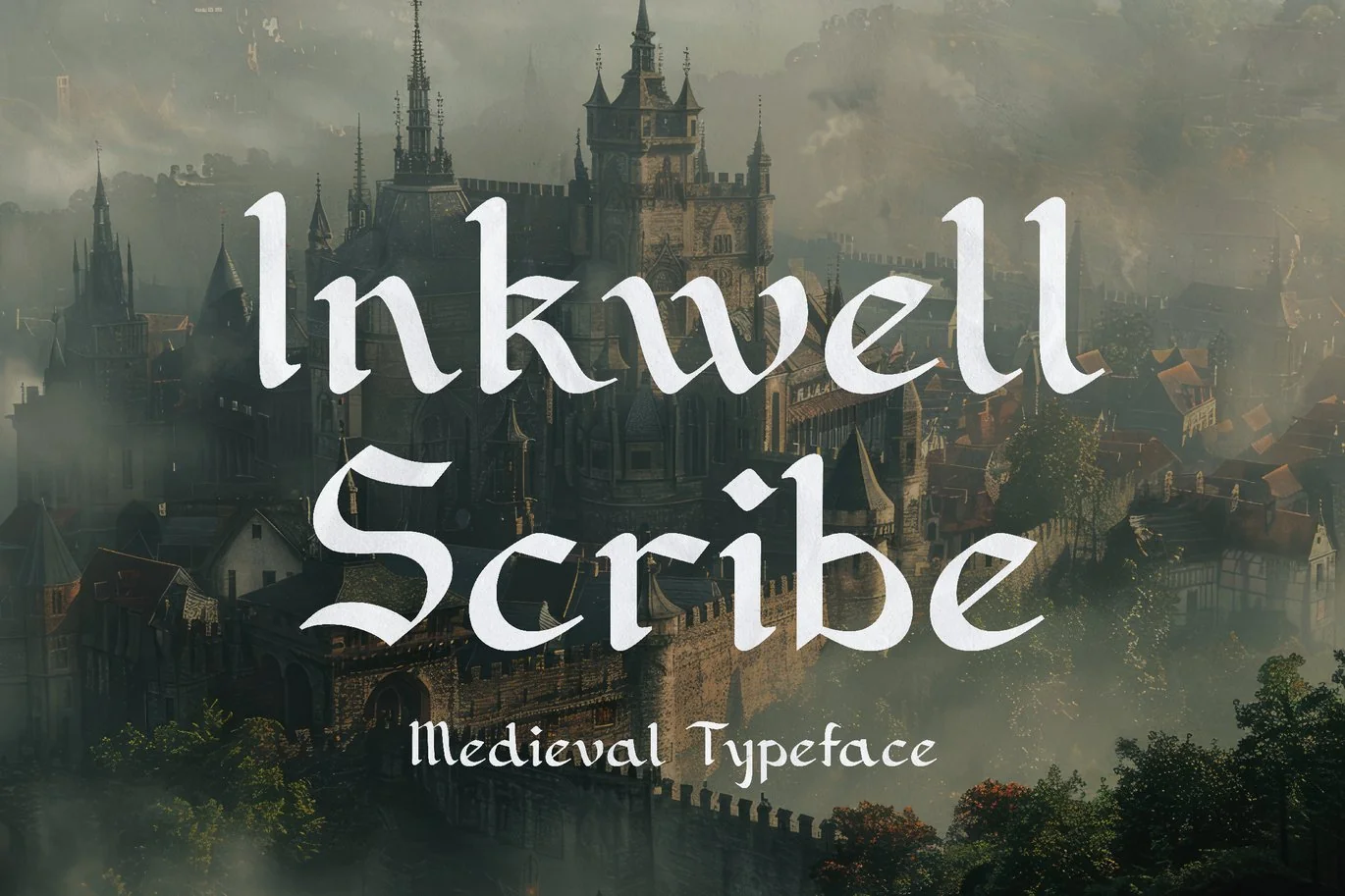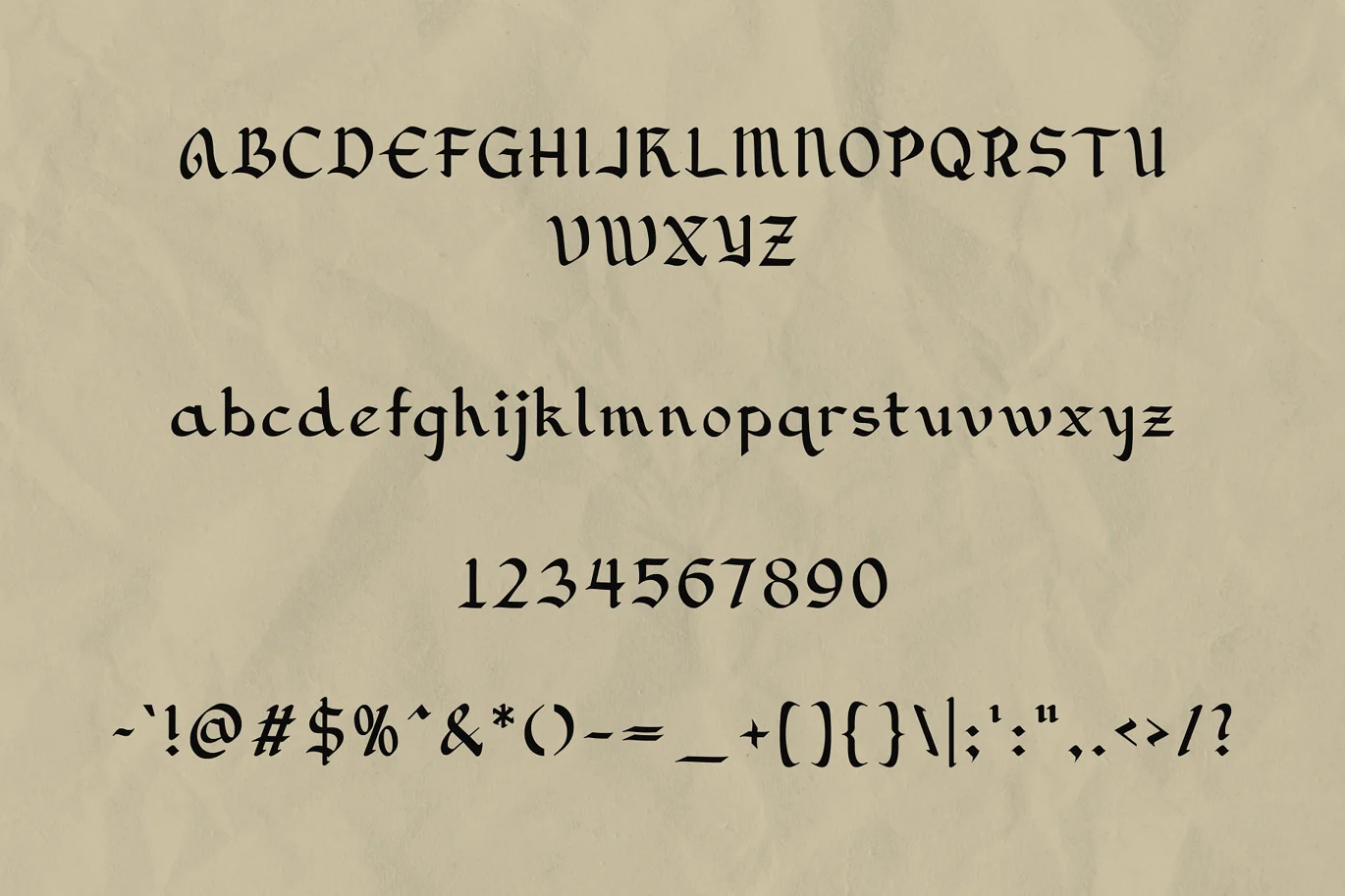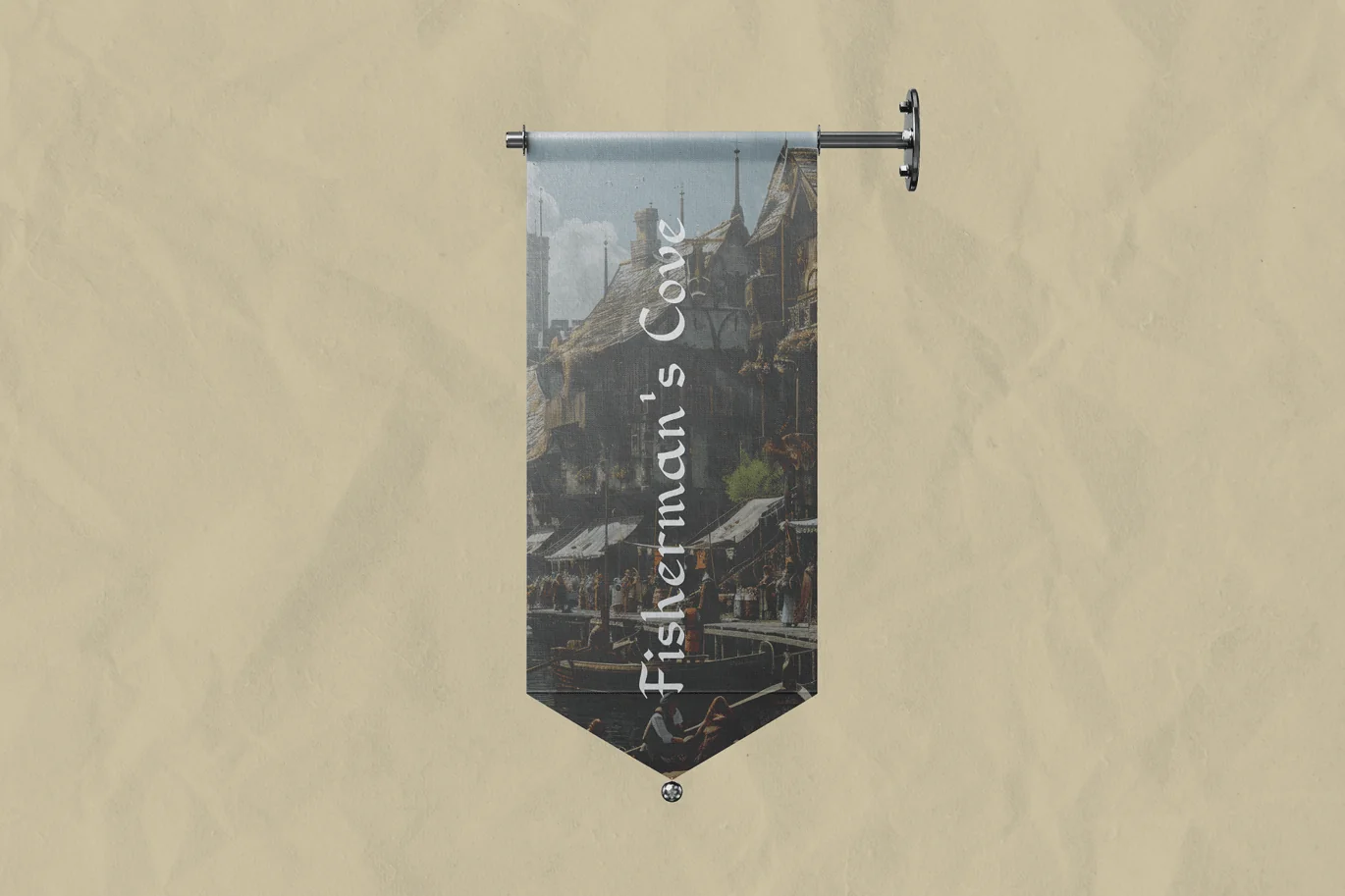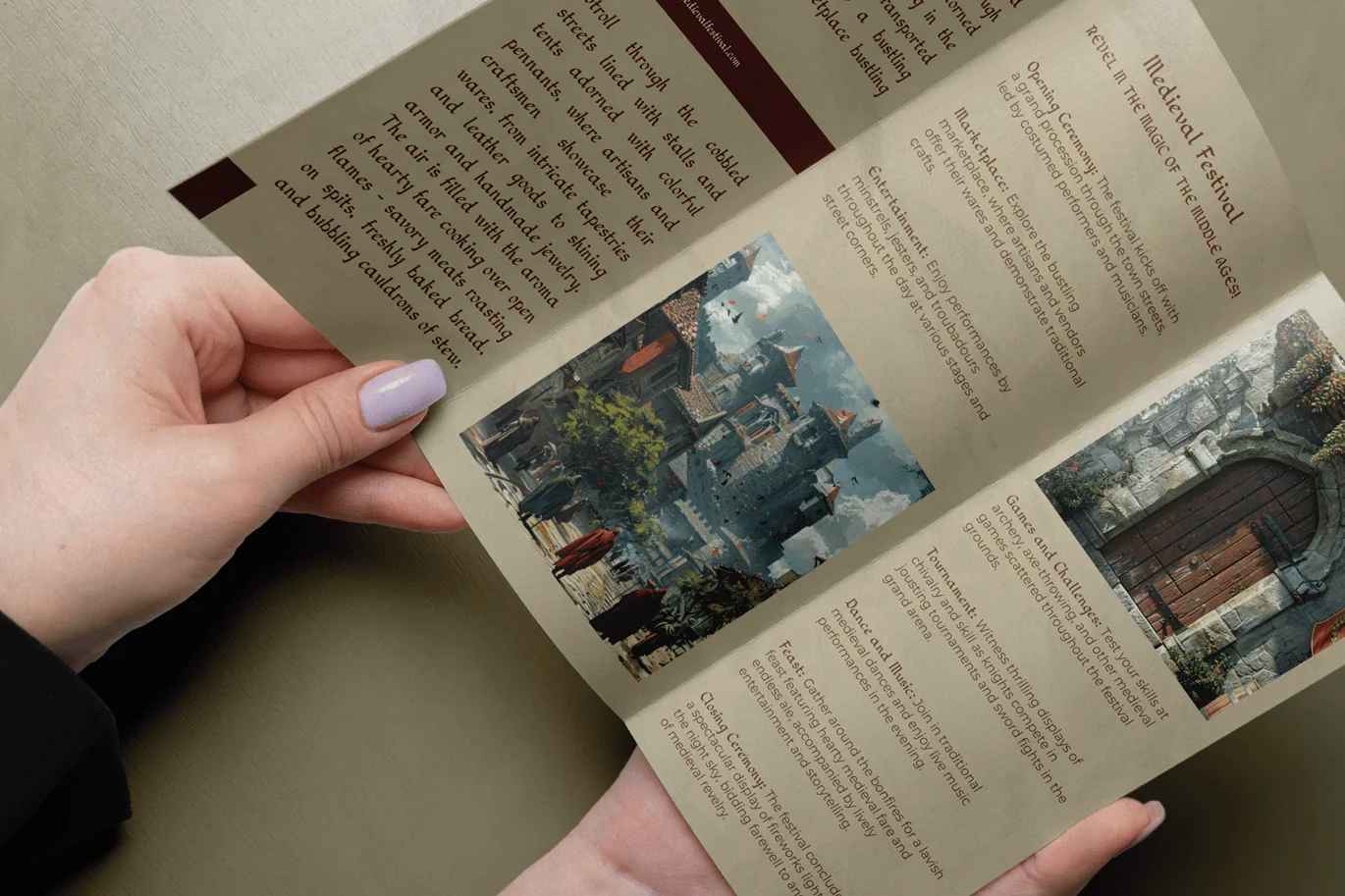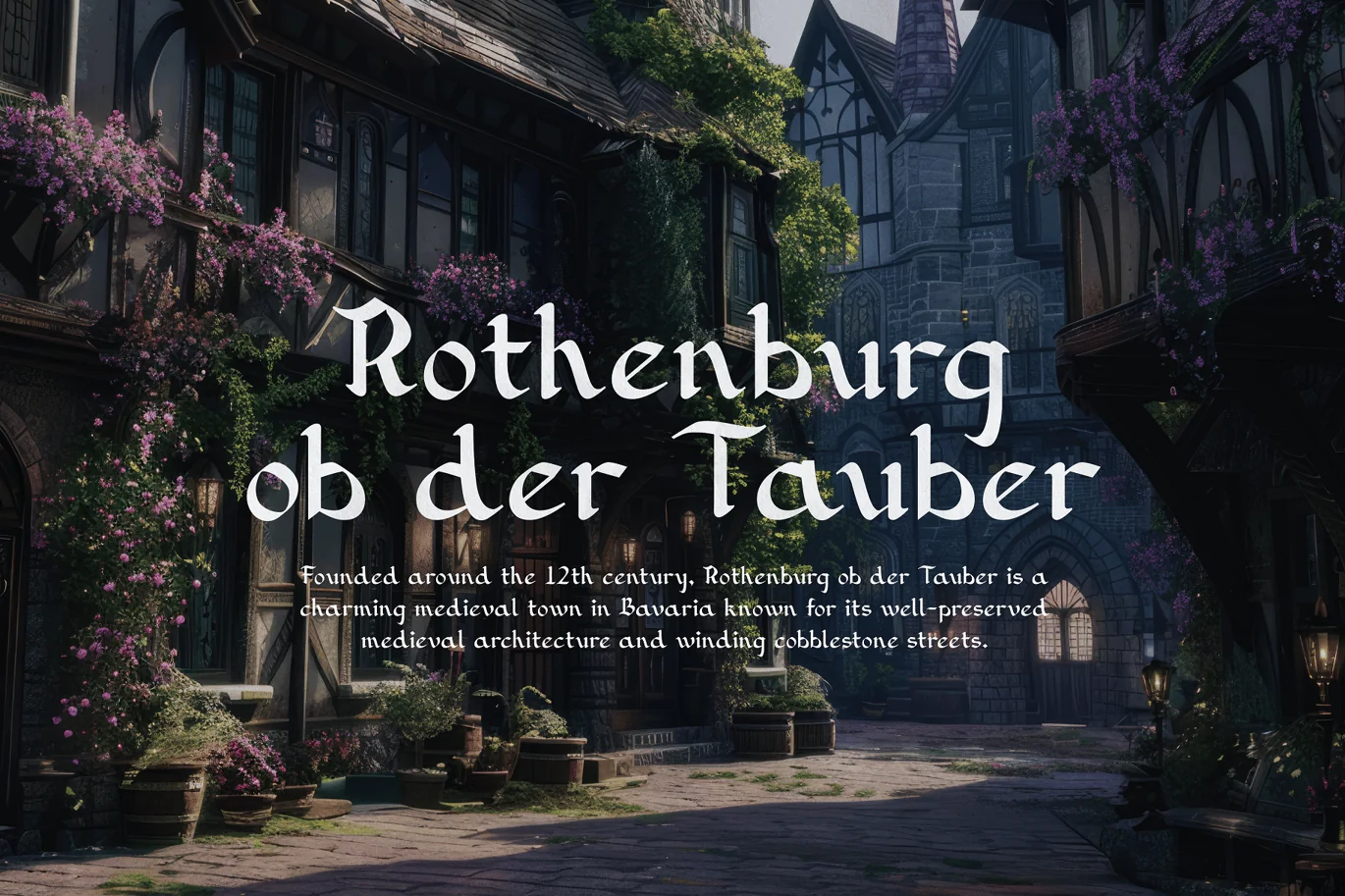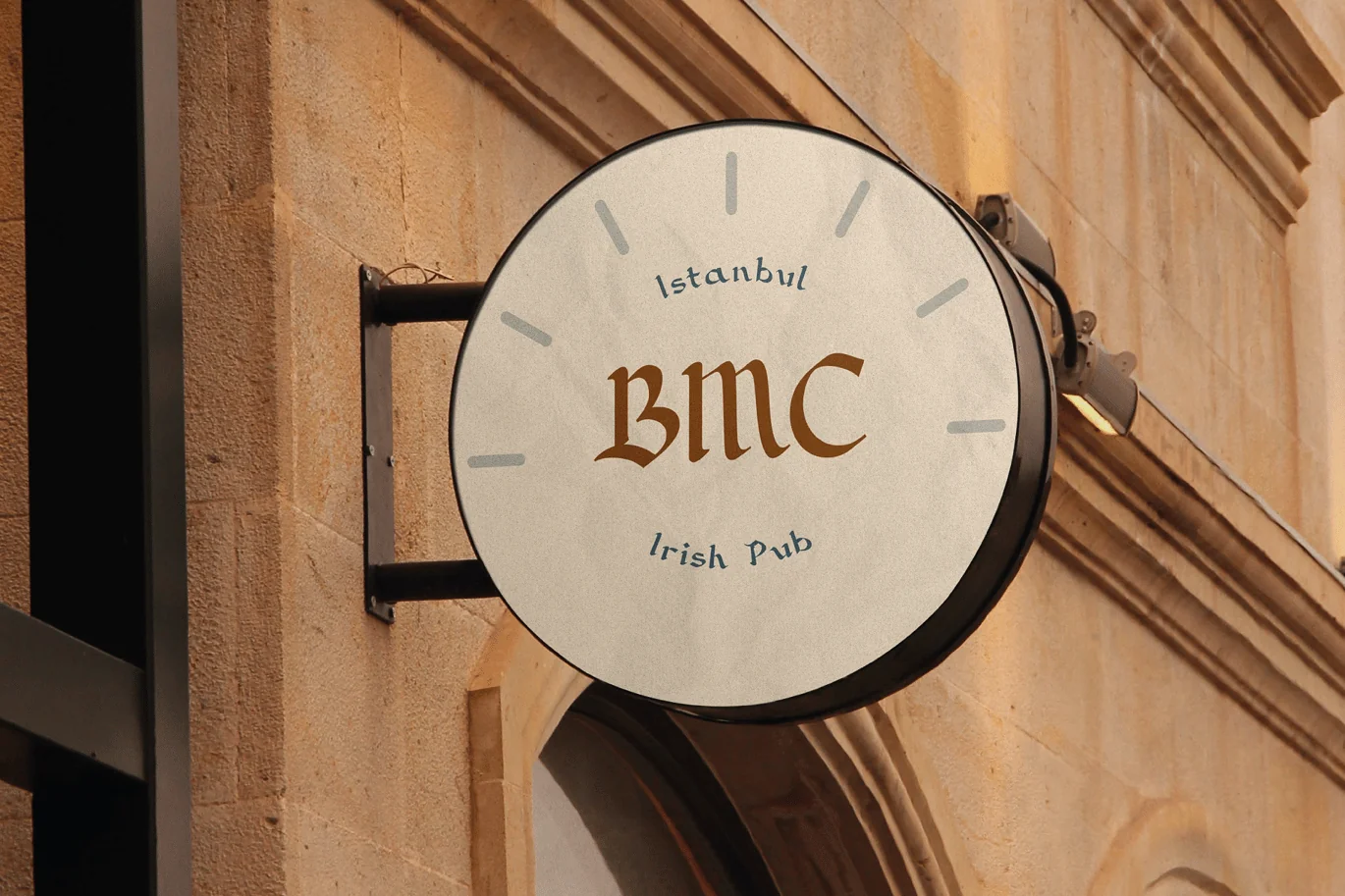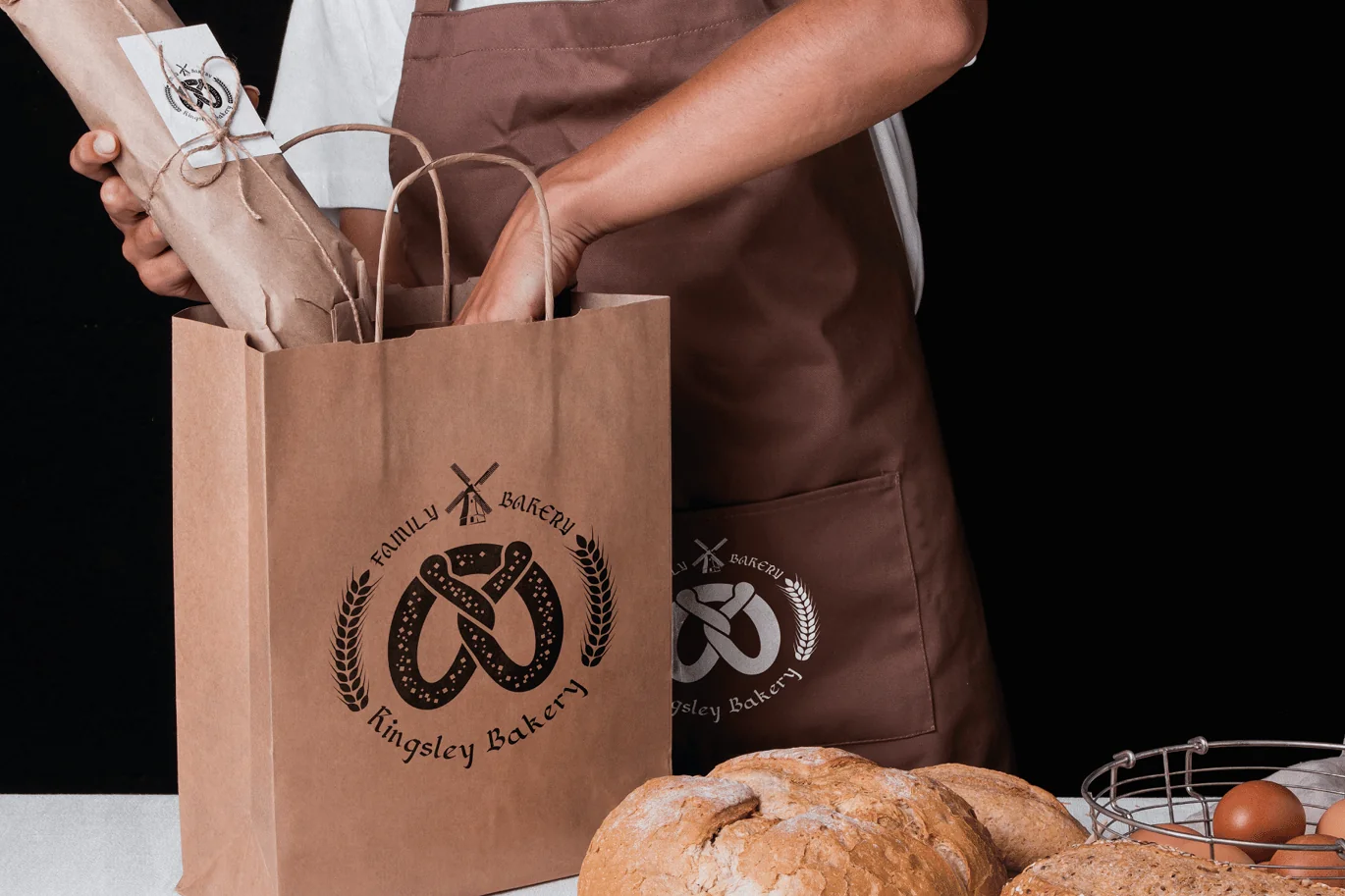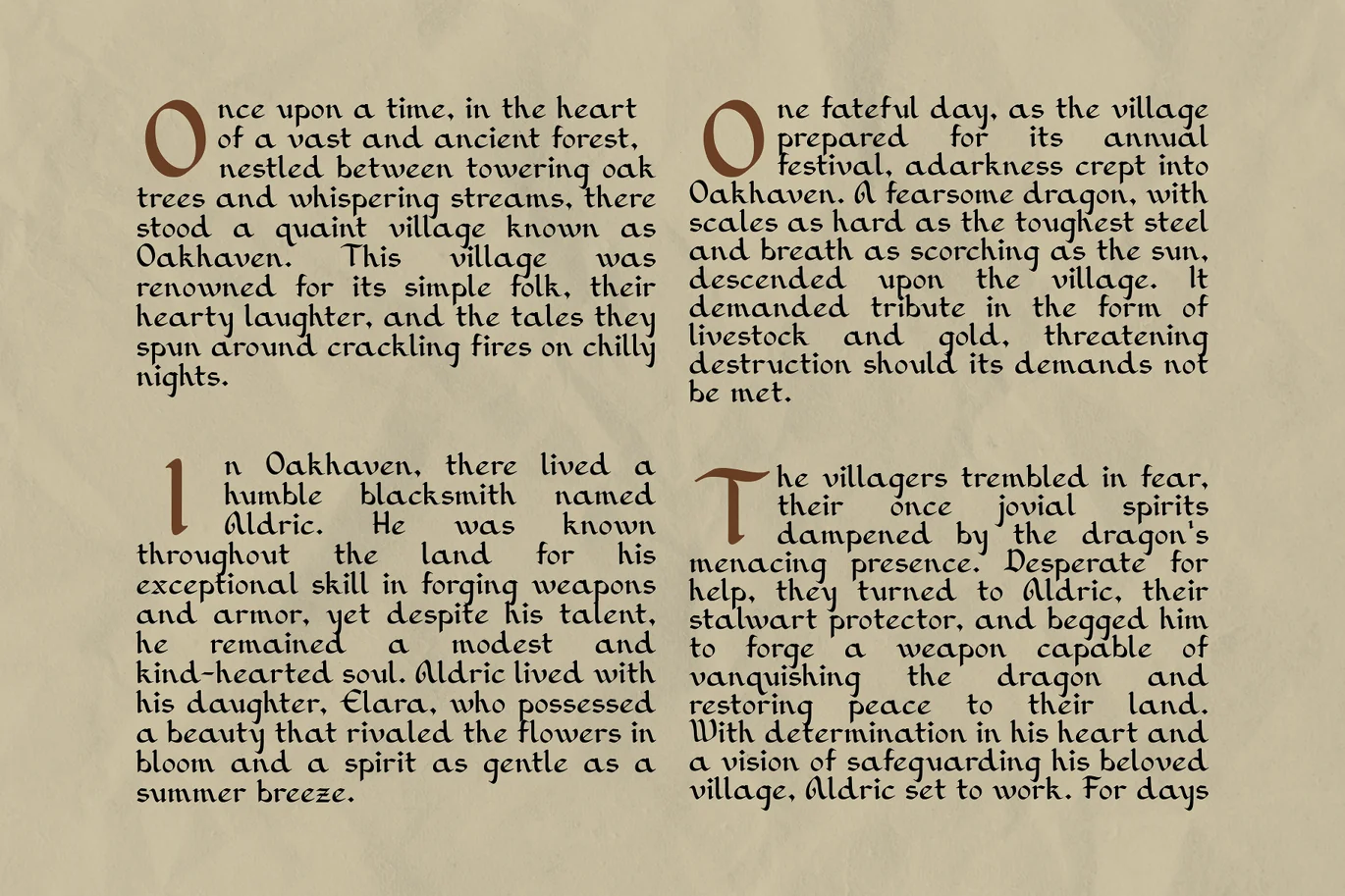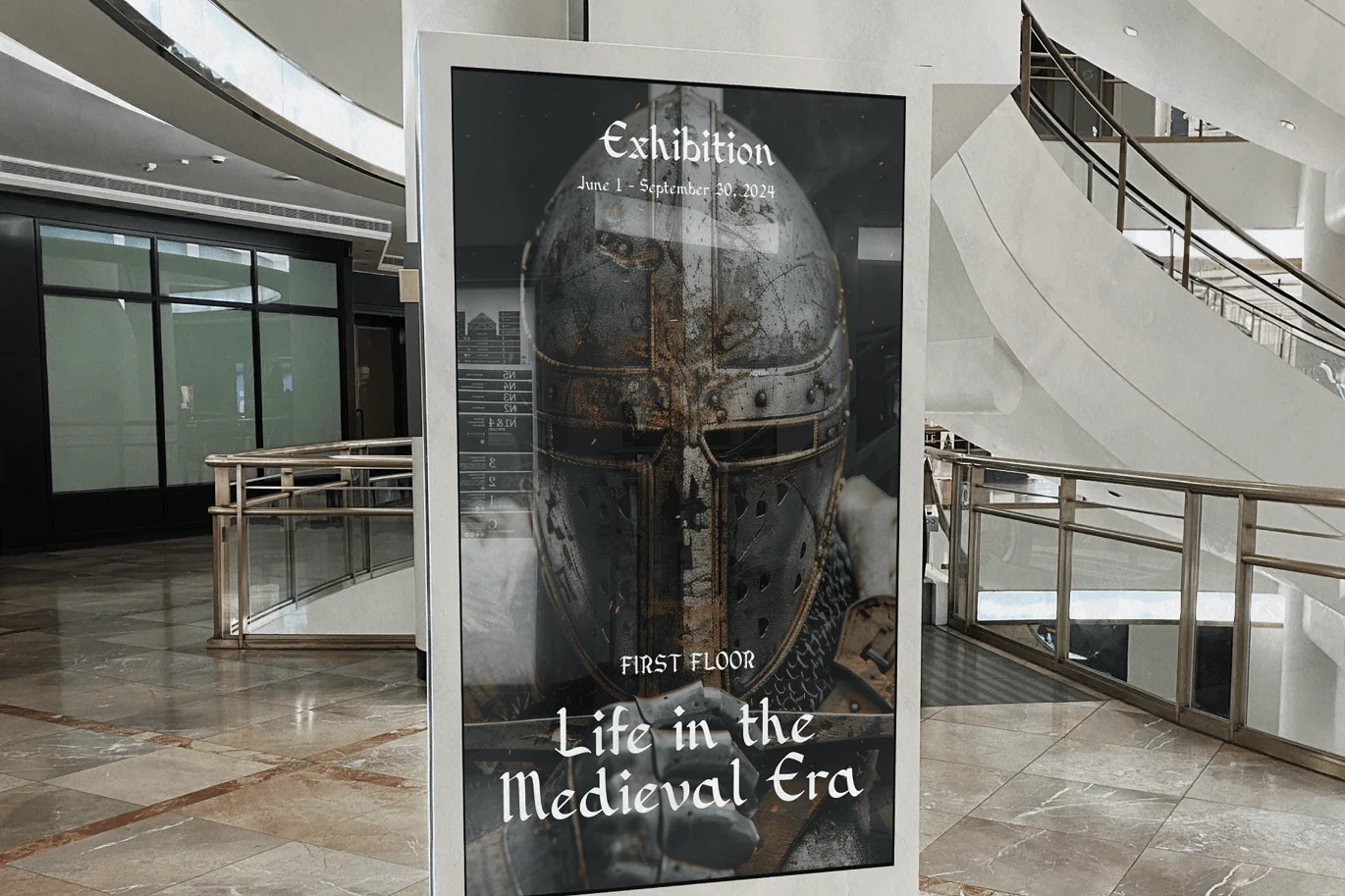
Inkwell Scribe – Medieval Typeface
Step into the enchanting world of the Middle Ages with Inkwell Scribe, a meticulously crafted typeface that captures the essence of medieval manuscripts and calligraphy. Perfect for bringing a touch of historical elegance to your modern designs, Inkwell Scribe weaves the artistry and tradition of medieval script into every character.
Inkwell Scribe isn’t just a typeface; it’s a journey into the rich, artistic world of medieval calligraphy. Whether you’re aiming to evoke a sense of history or add a touch of old-world charm to your designs, Inkwell Scribe is the perfect choice.
Discover the beauty of medieval script with Inkwell Scribe Typeface and let your designs tell a story of elegance and tradition.